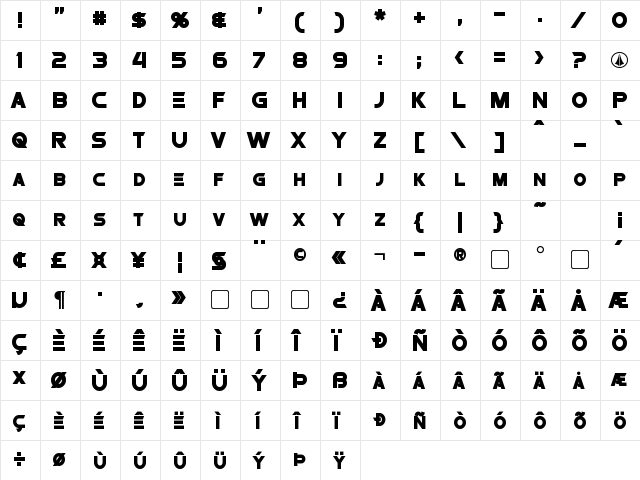
Protoculture Bold Font Preview
Protoculture Bold
Protoculture Bold Font Details
| Foundry | Neale Davidson |
| Designer | Neale Davidson |
Design Context for Protoculture Typeface
Protoculture offers clean, dependable letterforms without strong stylistic allegiance, making it a practical choice for designers who need flexibility. Its bold stroke weight gives it real presence on the page.